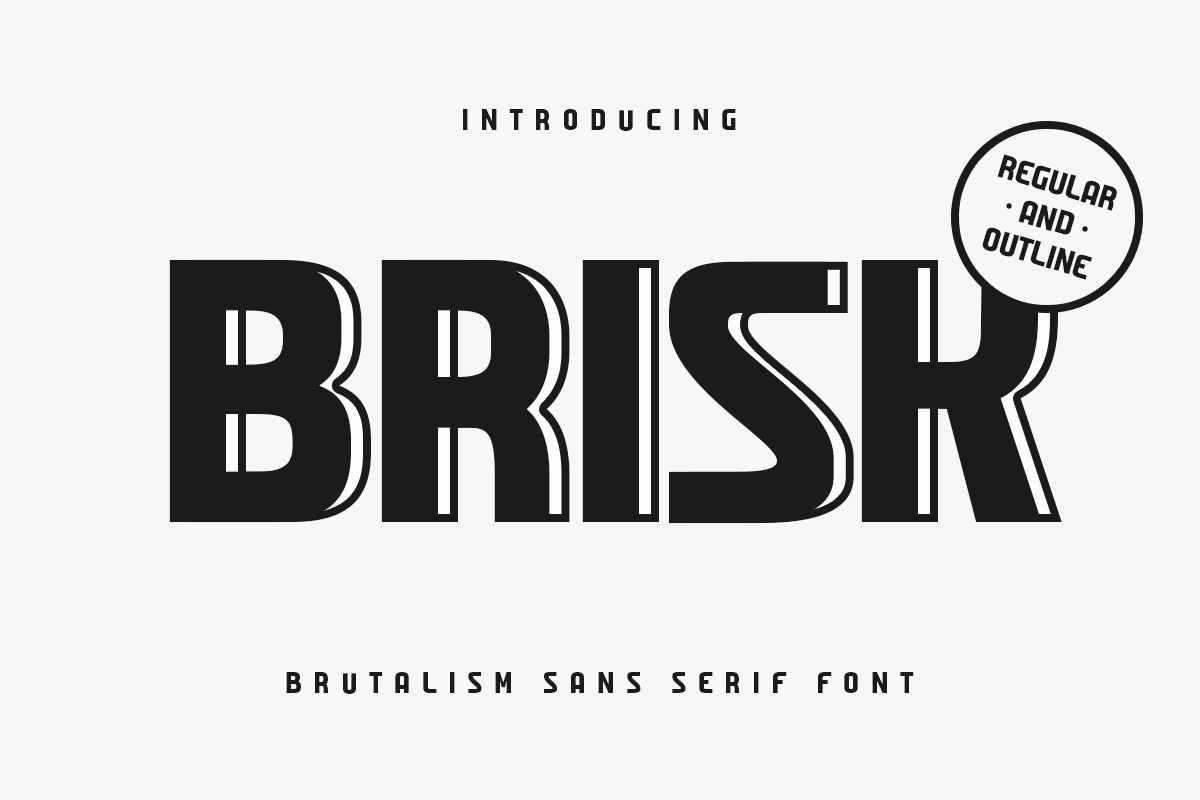
Brisk - Brutalism Sans Serif Font
A Modern Sans serif font are prepared special for action, bold, and sport design needs.
A new Sans serif font that we created special for Headline, Title and more stand out typography needs, with extra outline that will add your variations. It's so perfect to add your style and headline overview. And specially for Brisk font, we crafted for futuristic style and modern feels so enjoy to create any project that will show your main idea out.
- Any options to get creative variations (combination of Outline Characters)
- Ready with Uppercase and Lowercase characters